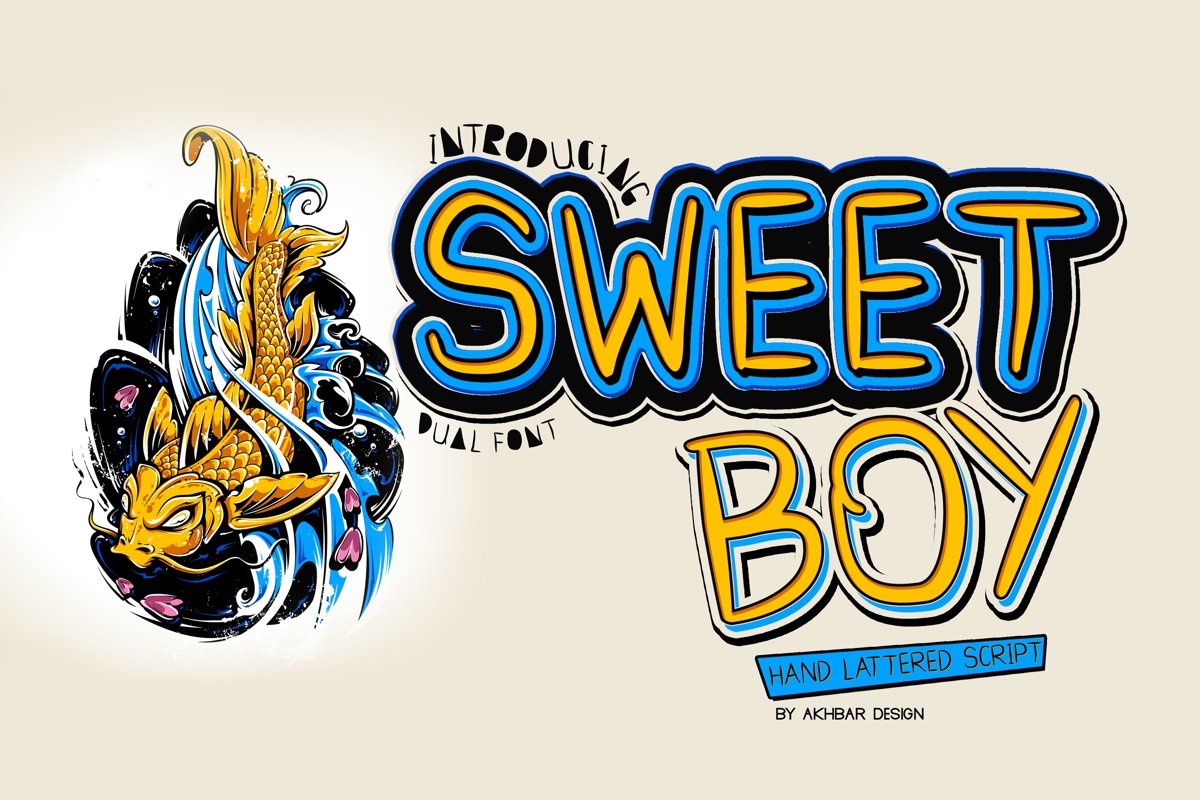
Sweet Boy
Sweet Boy bold
Sweet Boy regular
Sweet boy is handmade texts that appear to be made by children's handwriting. All letters and numbers are available in two variants. all the designs that you use with this font will be more interesting if the two variants of this font are combined.